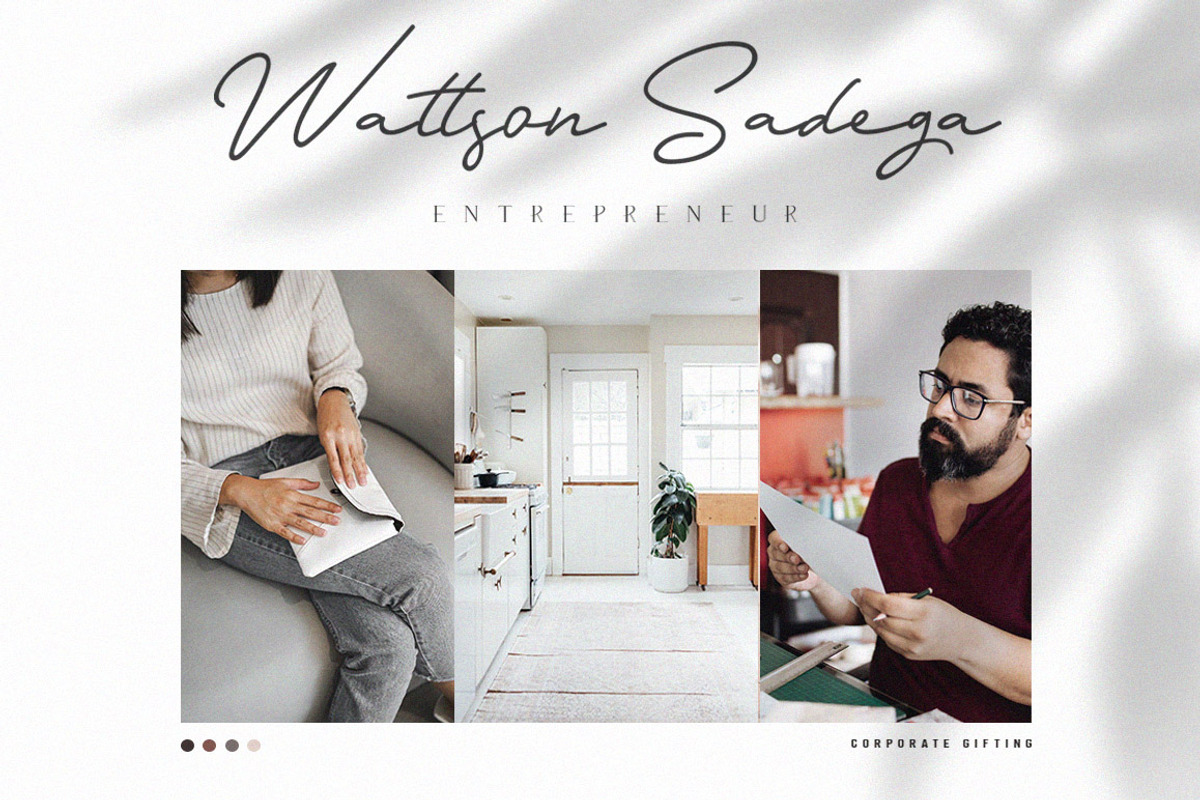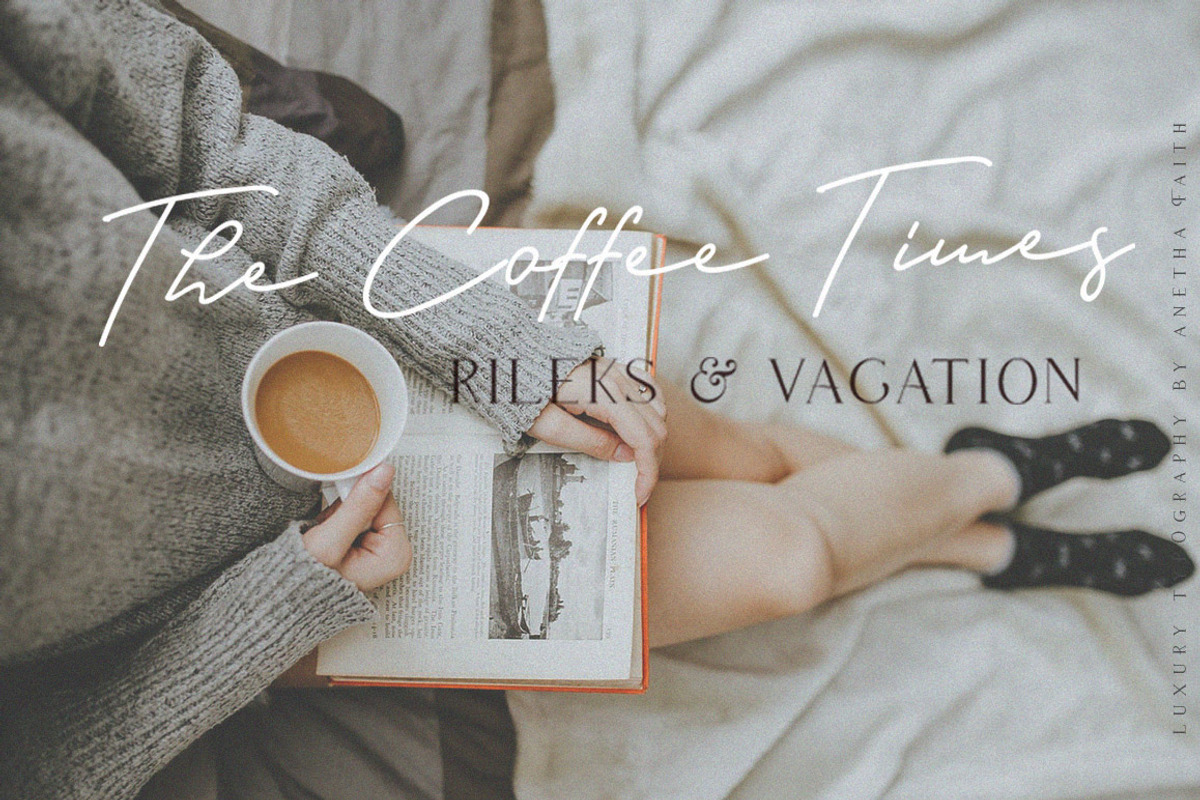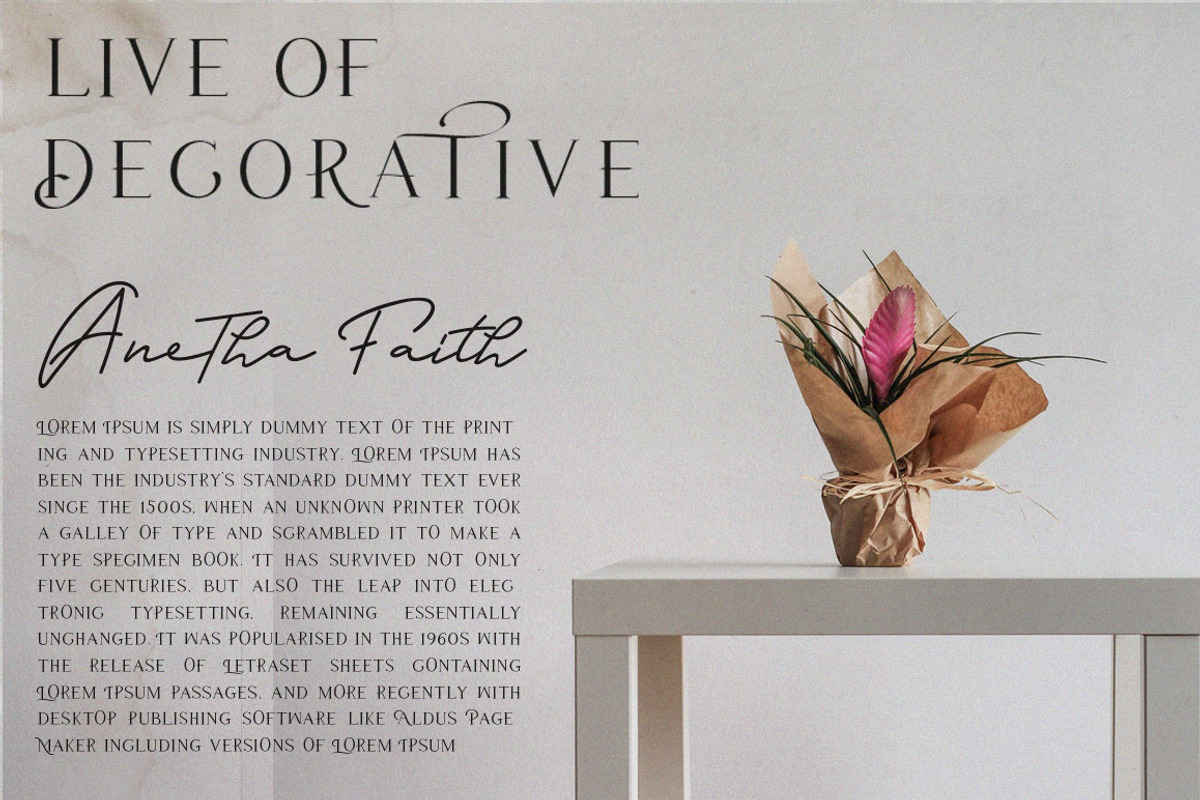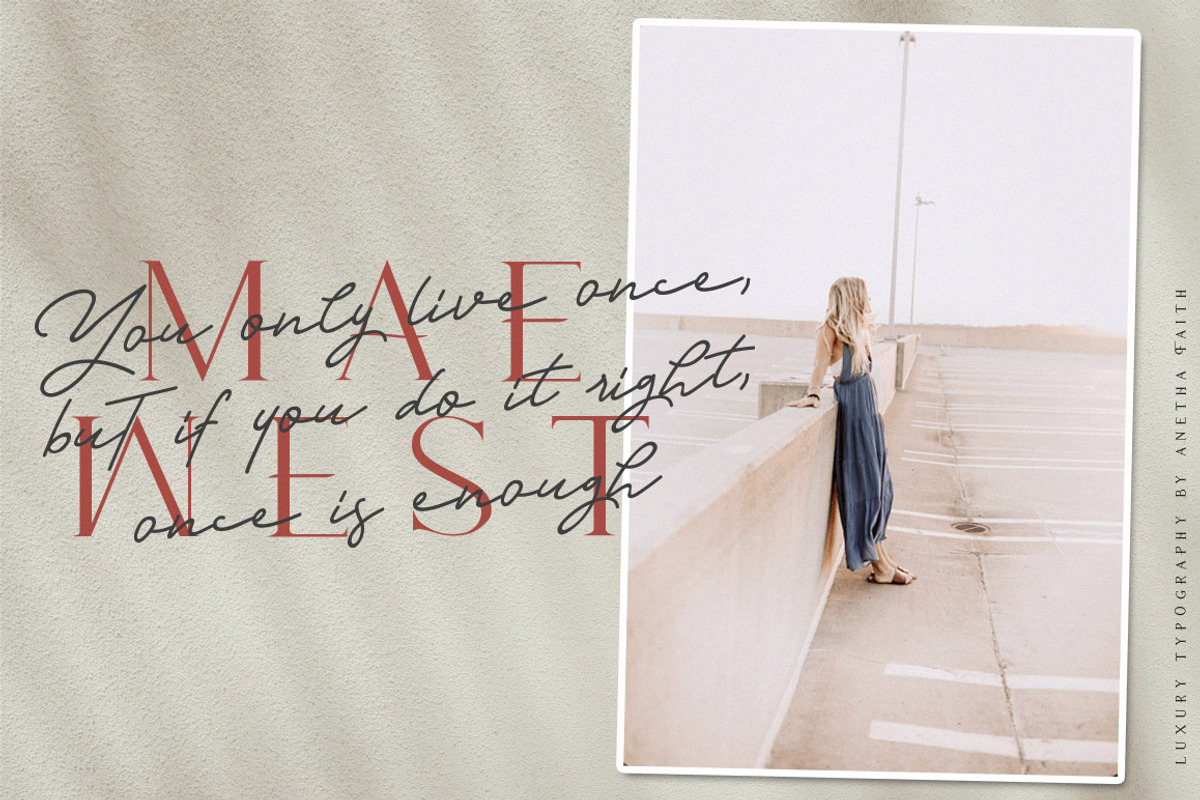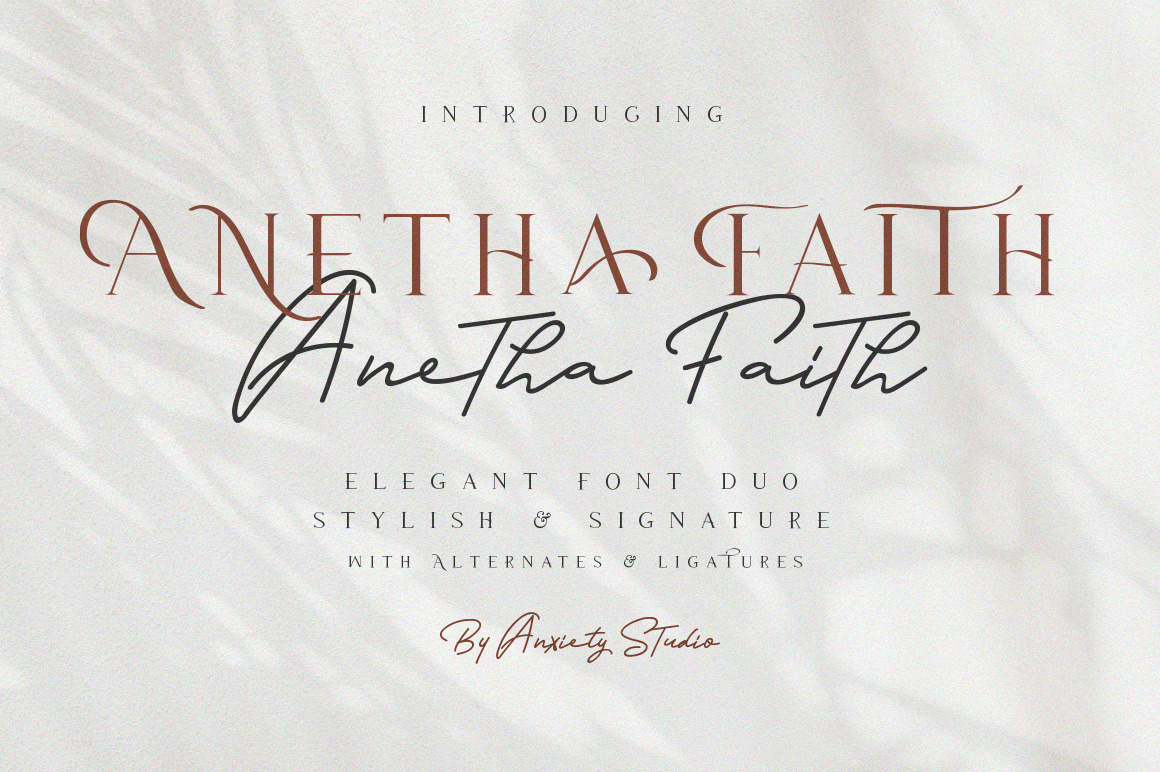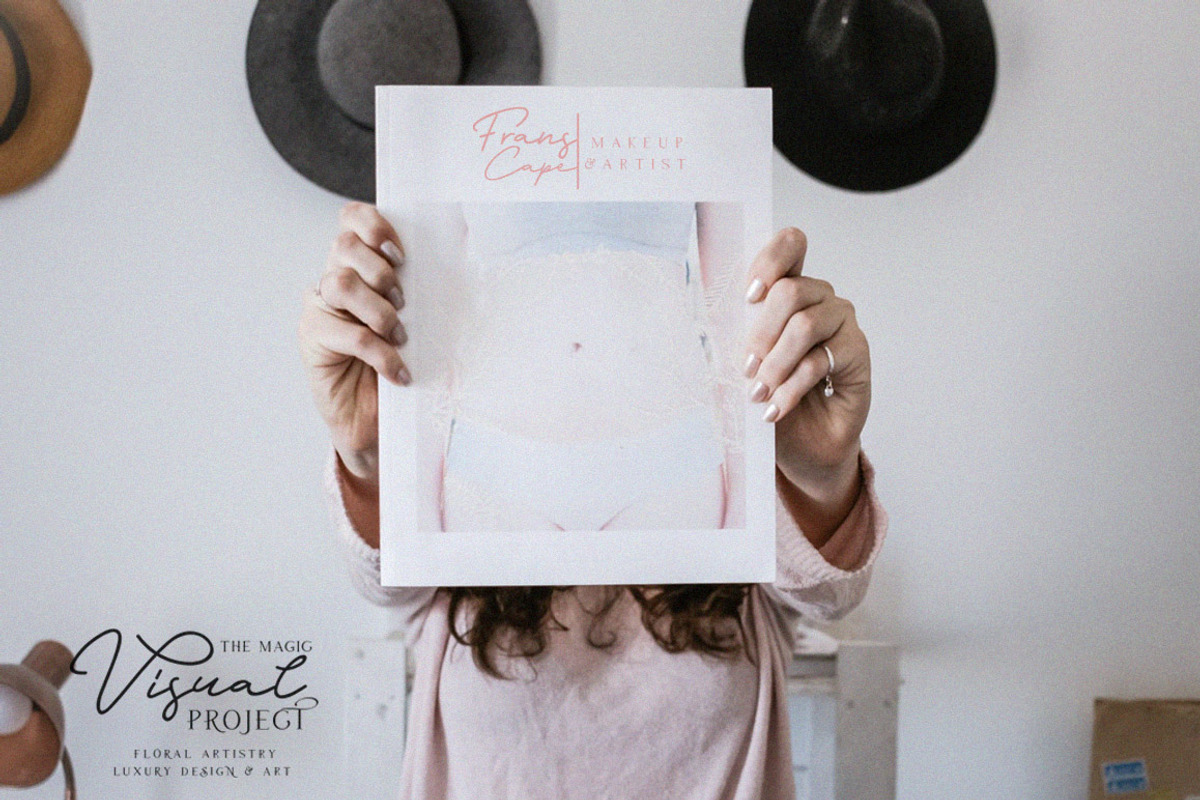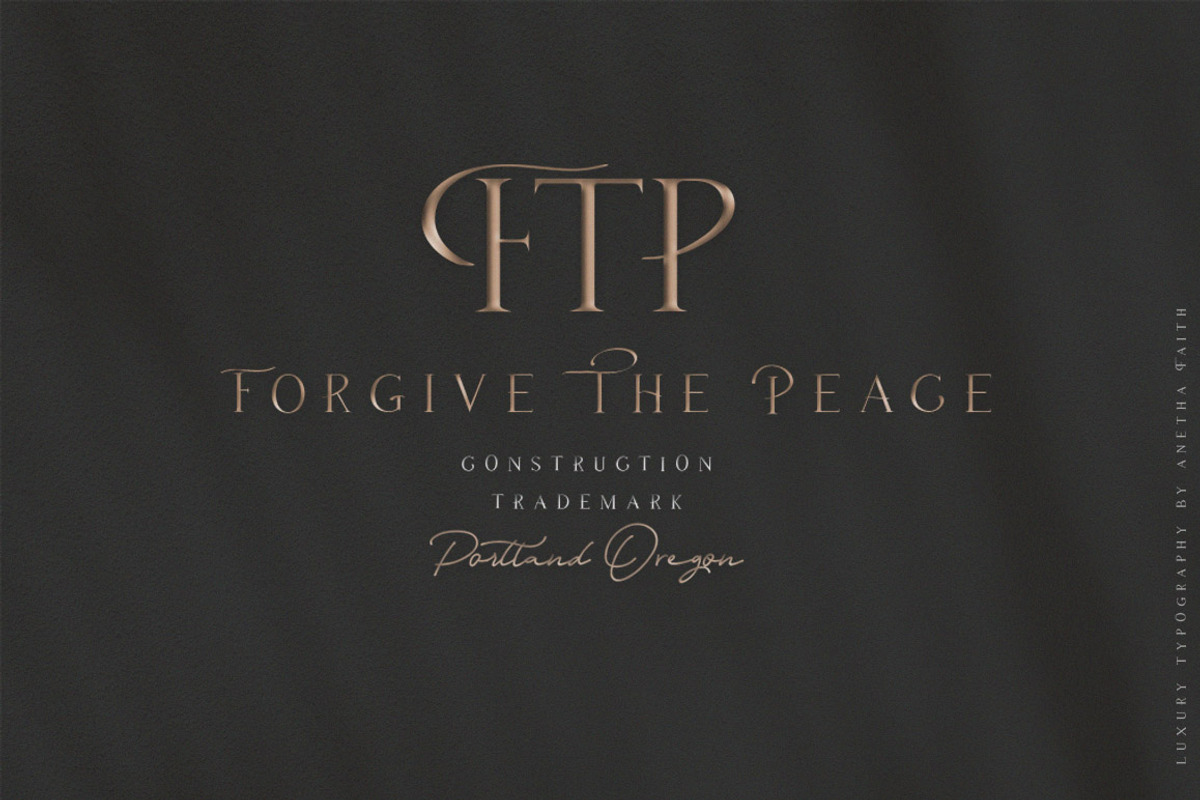
Anetha Faith Signature Font Duo
Anetha Faith Font Duo & Extras
Hey Guys!, Anxiety Studio proudly presents, Anetha Faith Font Duo is a signature font classy and Luxury Serif, fun, free compilation expressive and cool script inspired by a luxury fashion. Contemporary handwriting fonts with ligatures and alternative styles ready to add unique look and bloom on your design.
Anetha Faith two of our newest fonts with monoline and Serif. This script is also equipped with Ligatures and Stylistic Alternates which will make the font signatures more real. Anetha Faith Font Duo is the best choice font for: Wedding Invitations, quotes, Posters, Logos, Print Ads, Digital Ads, Promotional Products etc. With a bonus 10 paper shadow template, make your project easier.
Each letter has an alternate option of your choice. Adobe users have access to each Opentype panel and Glyphs panel. Just use this Opentype combination:
Stylistic Alternates: change any letters, open the glyphs panel and you can choose the letter as needed.
Contextual Alternate: Automatically updates all the first & last letters and adds a complete look that is unique to any word. Imitating calligraphic styles and true font signatures when the last letter is always slightly different from the others.
Standard Ligatures :If you have opentype software, 'Discretionary Ligatures' can be turned on for the Script fonts, which will automatically switch standard letter pairs into the provided ligatures.